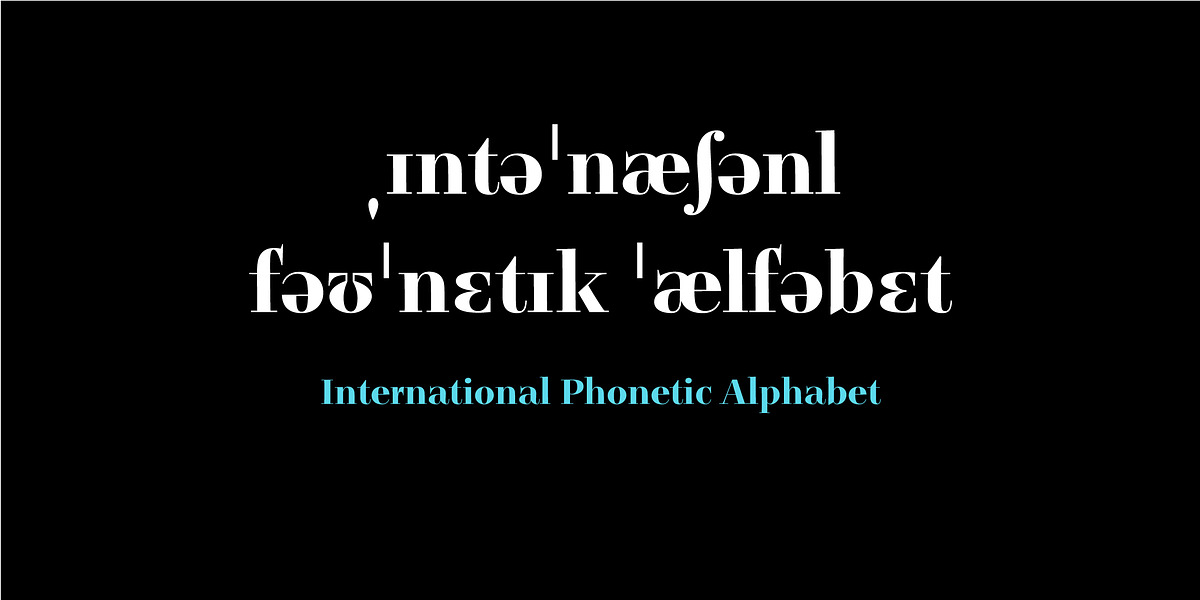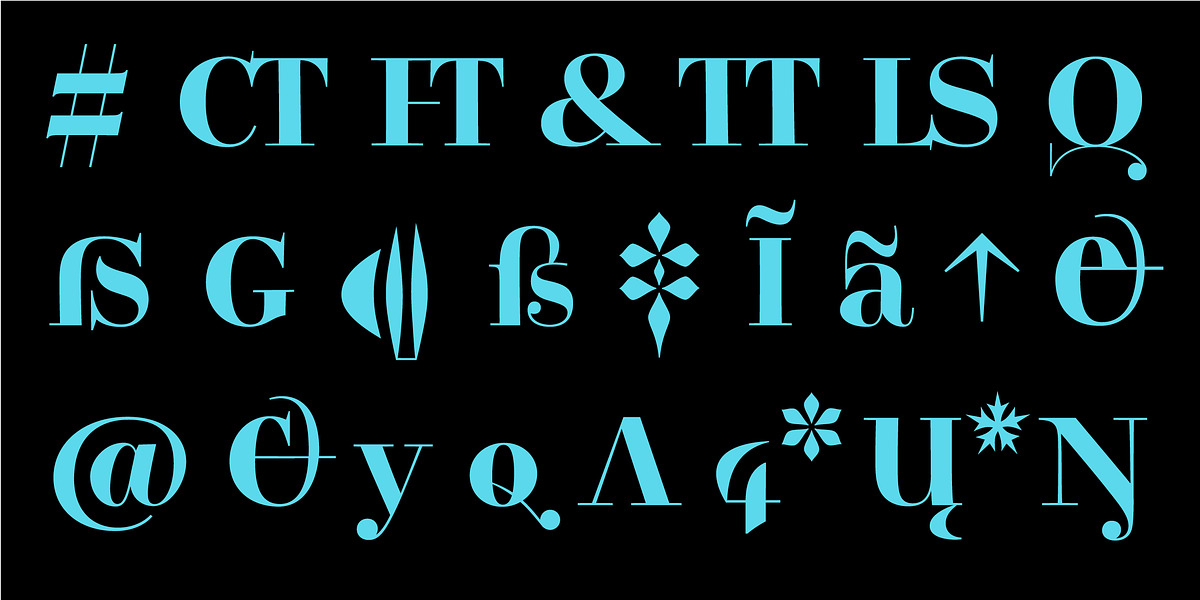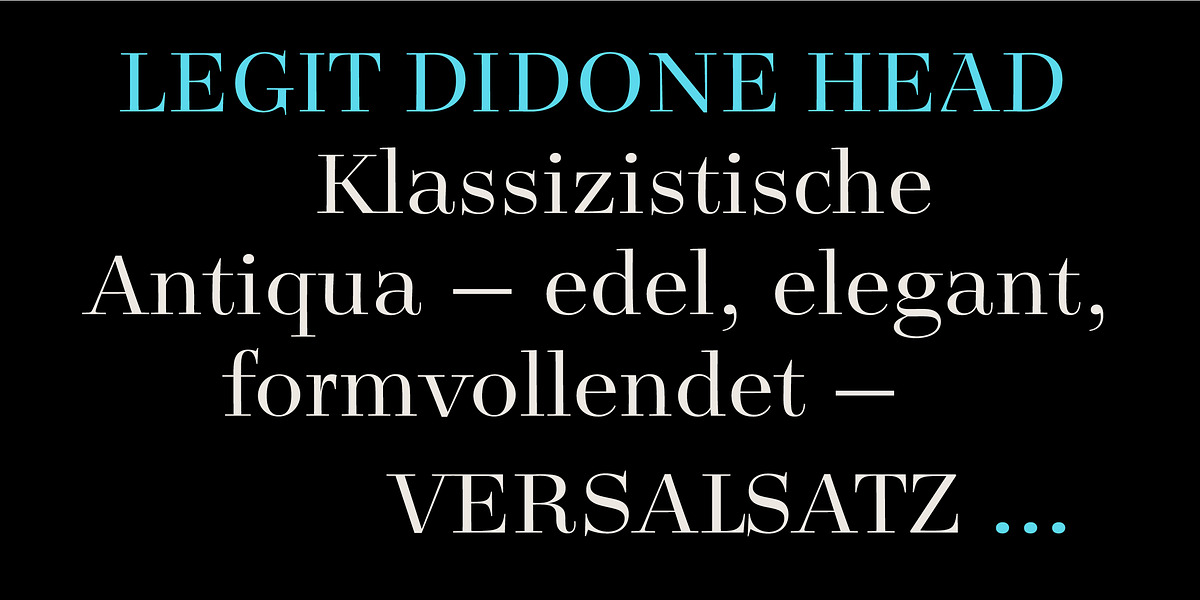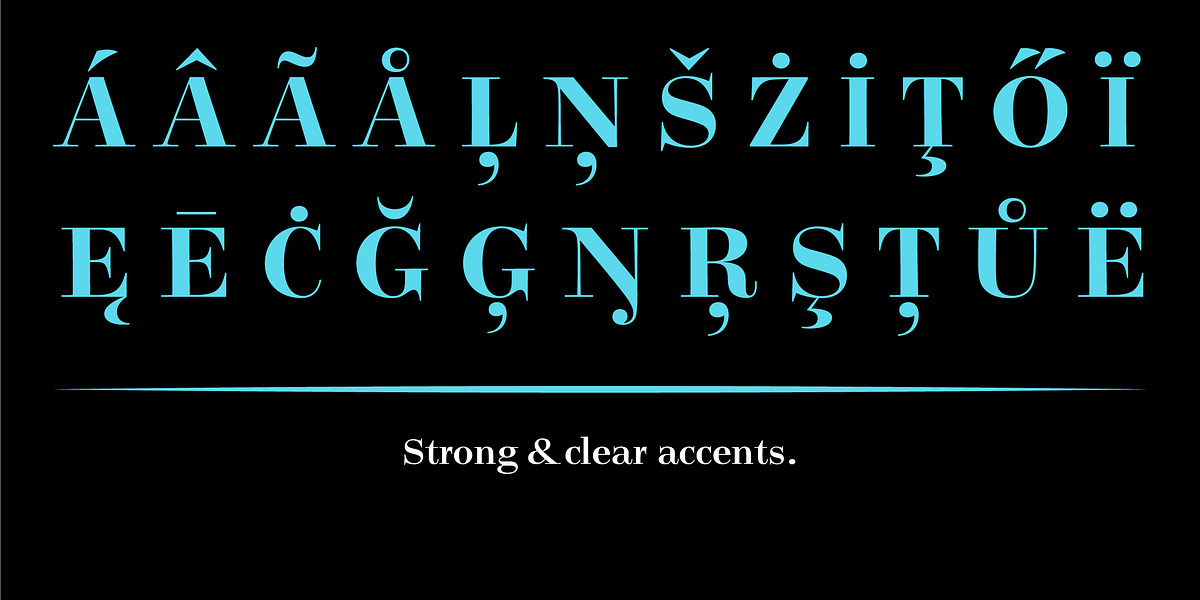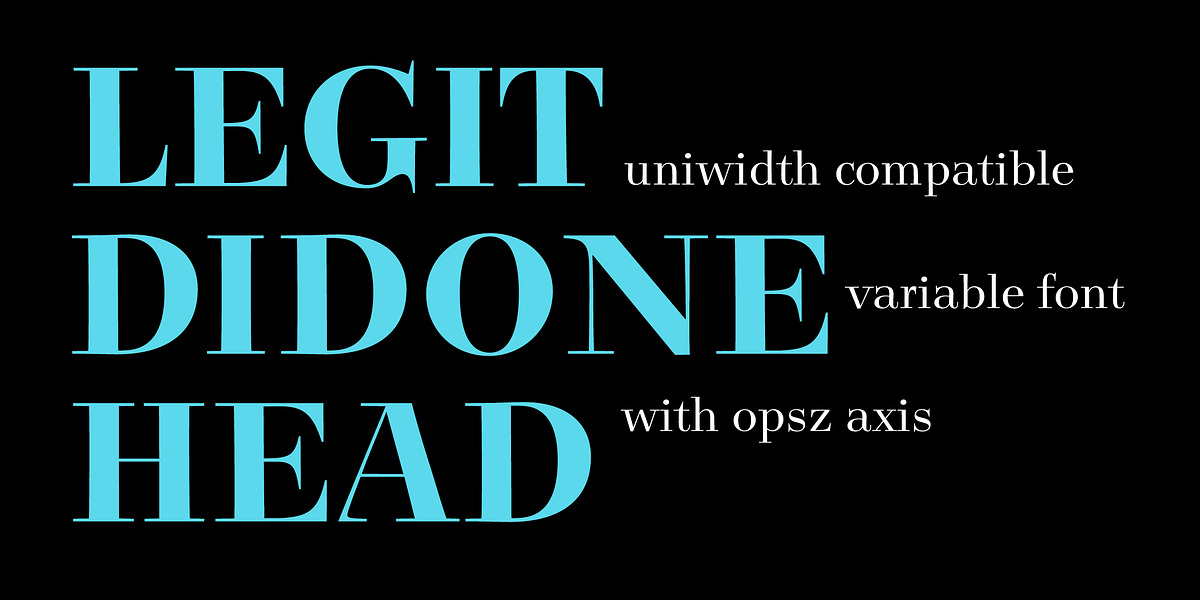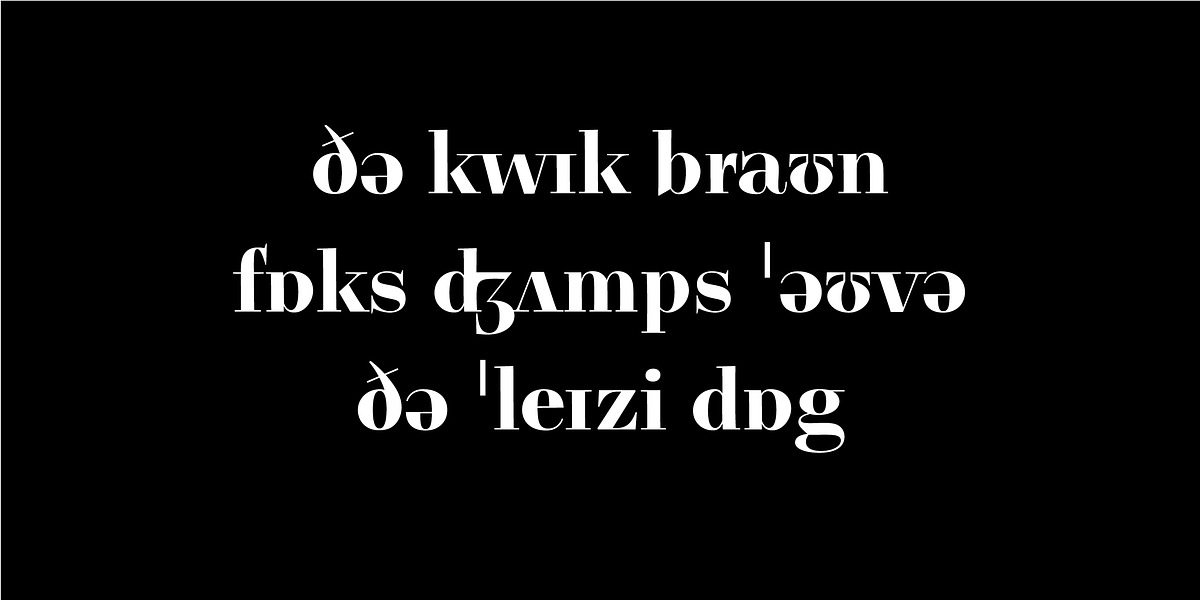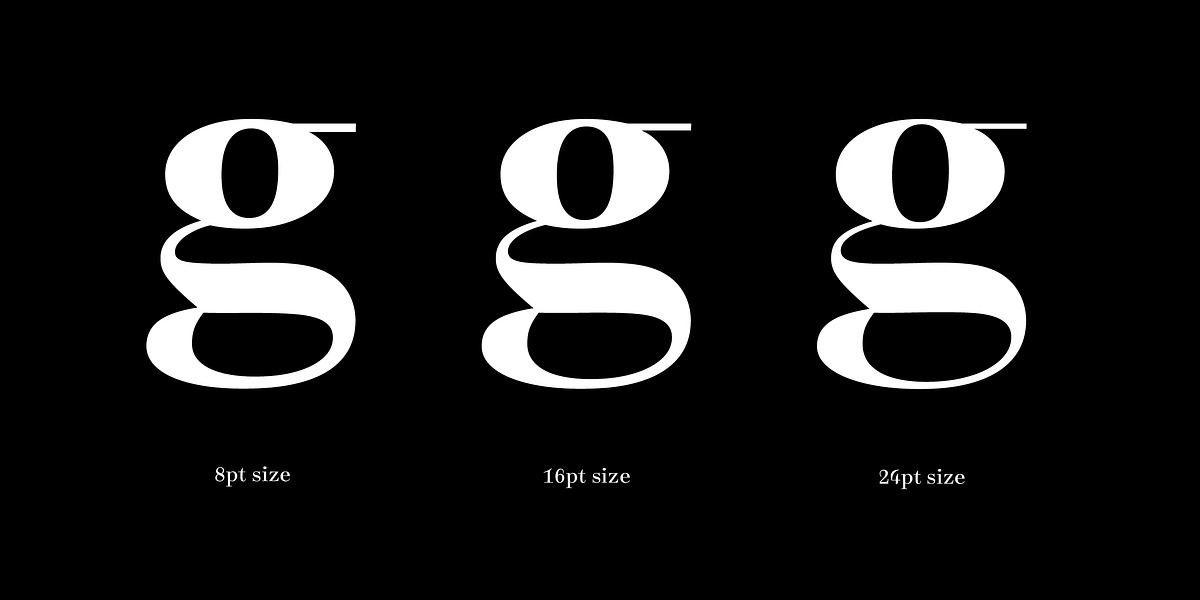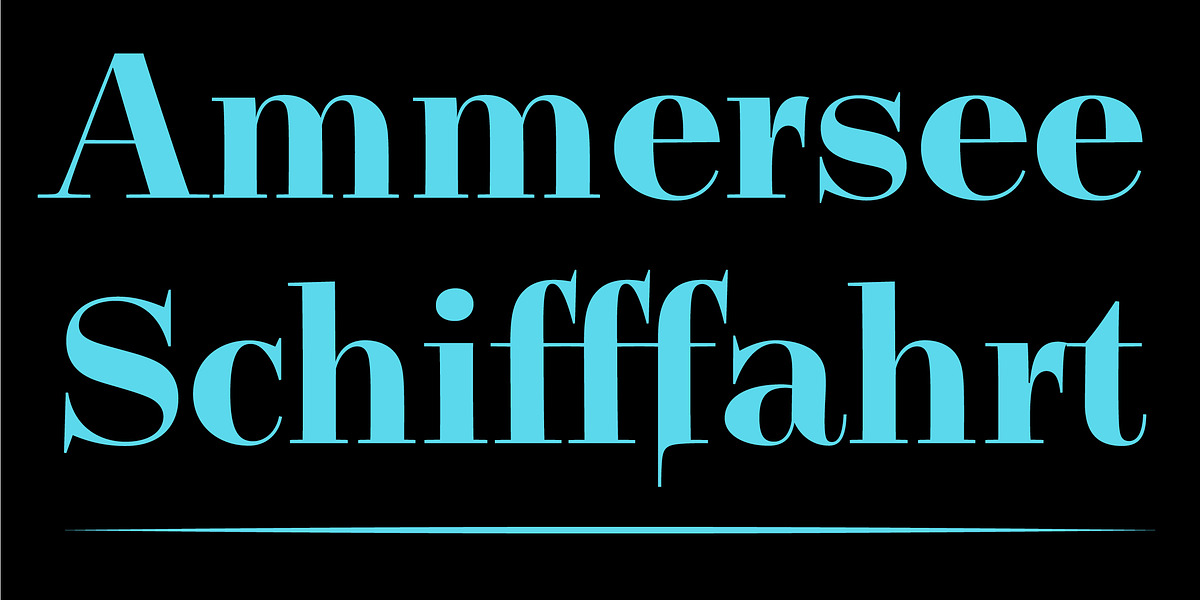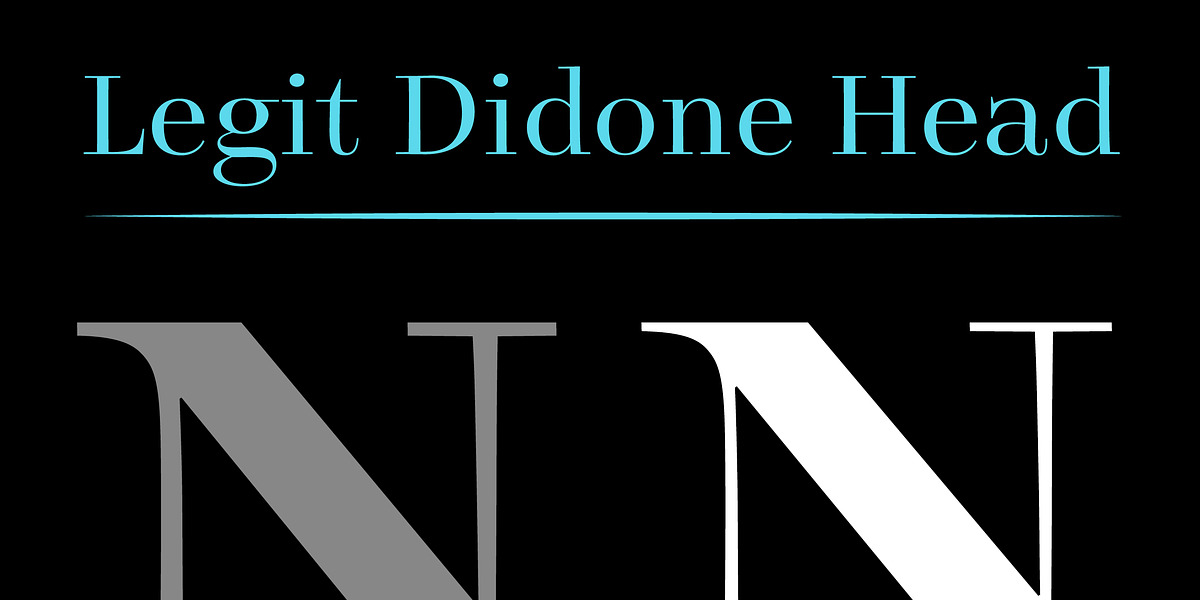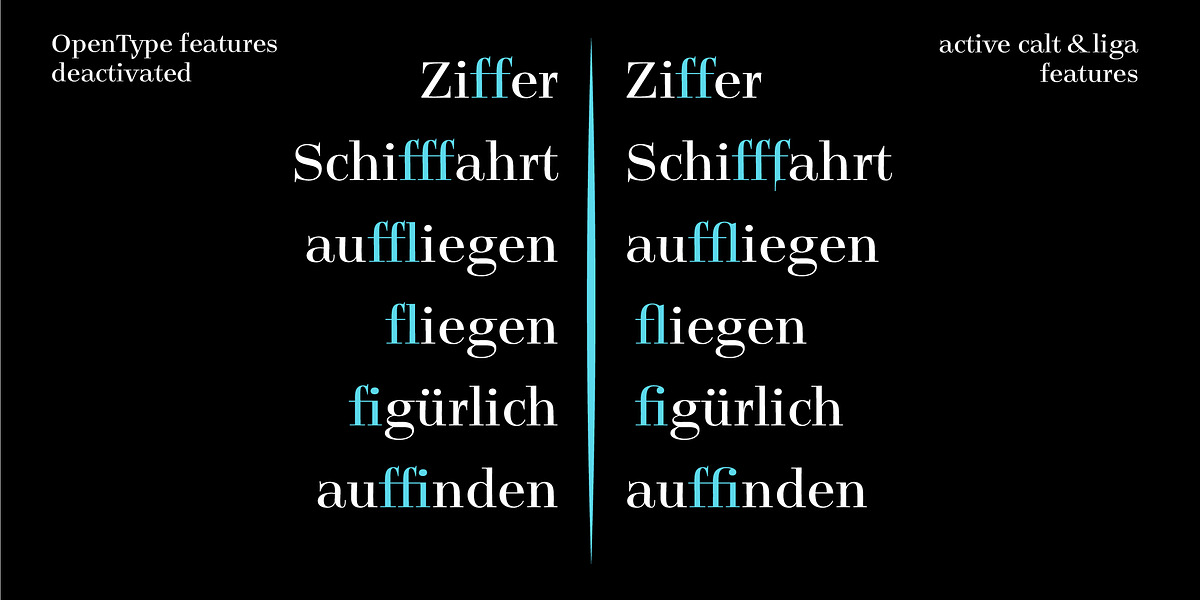
Legit Didone Head
Legit Didone is a didone serif typeface designed specifically for headlines and display text. Its elegant aesthetic is enhanced by high contrast between thick and thin strokes, a hallmark of the didone style. The font's compatibility with the Legit uniwidth system ensures that all weights and styles maintain consistent width, allowing for easy swapping without disrupting layout.